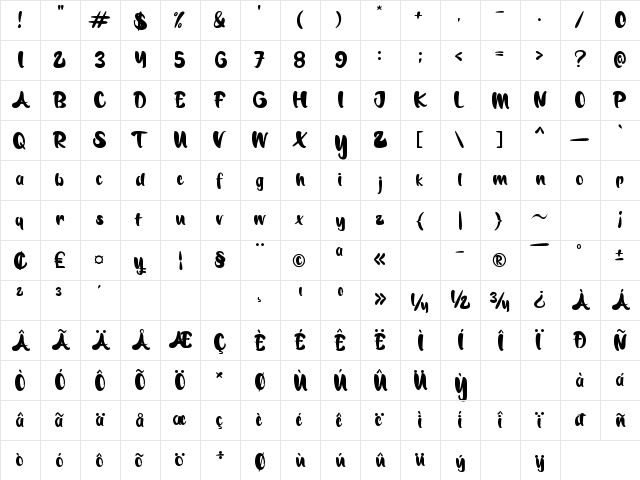
Moonliona Regular
Design Context for Moonliona Typeface
Moonliona is a composed and adaptable typeface that performs quietly and consistently across a wide range of design contexts.